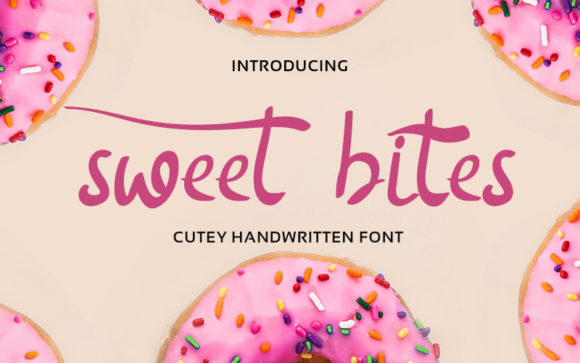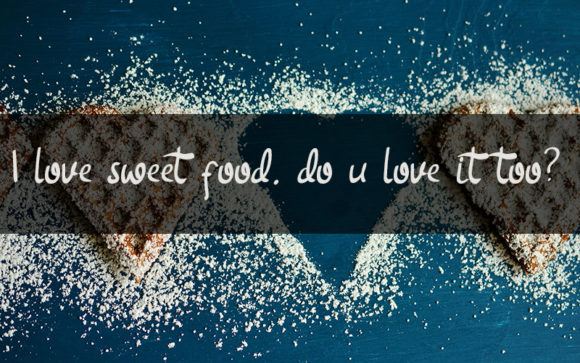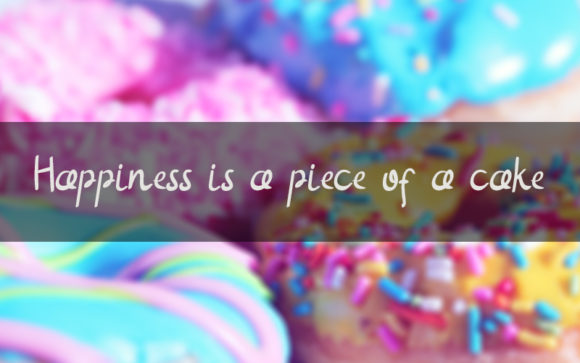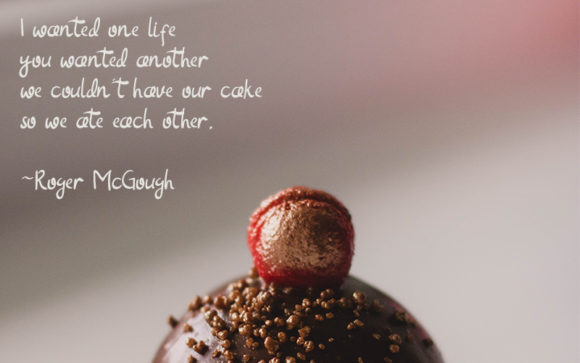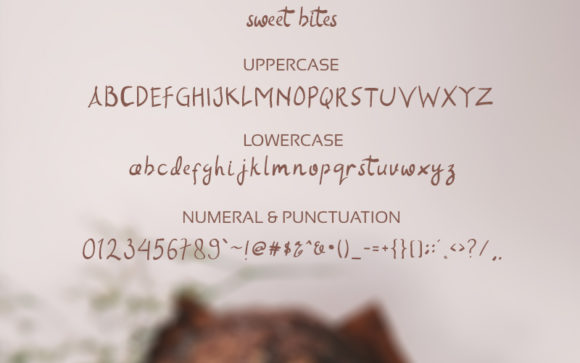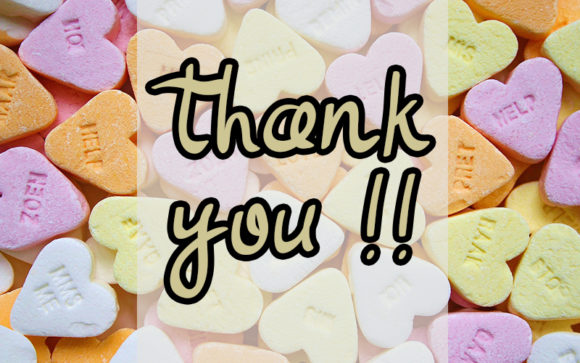
Sweet Bites Font
About Sweet Bites Font
Sweet Bites embodies fun, quirkiness and authenticity. This enchanting handwritten font will turn any creative idea into a true standout. It’s perfect for logos, social media posts, greeting cards and much more!